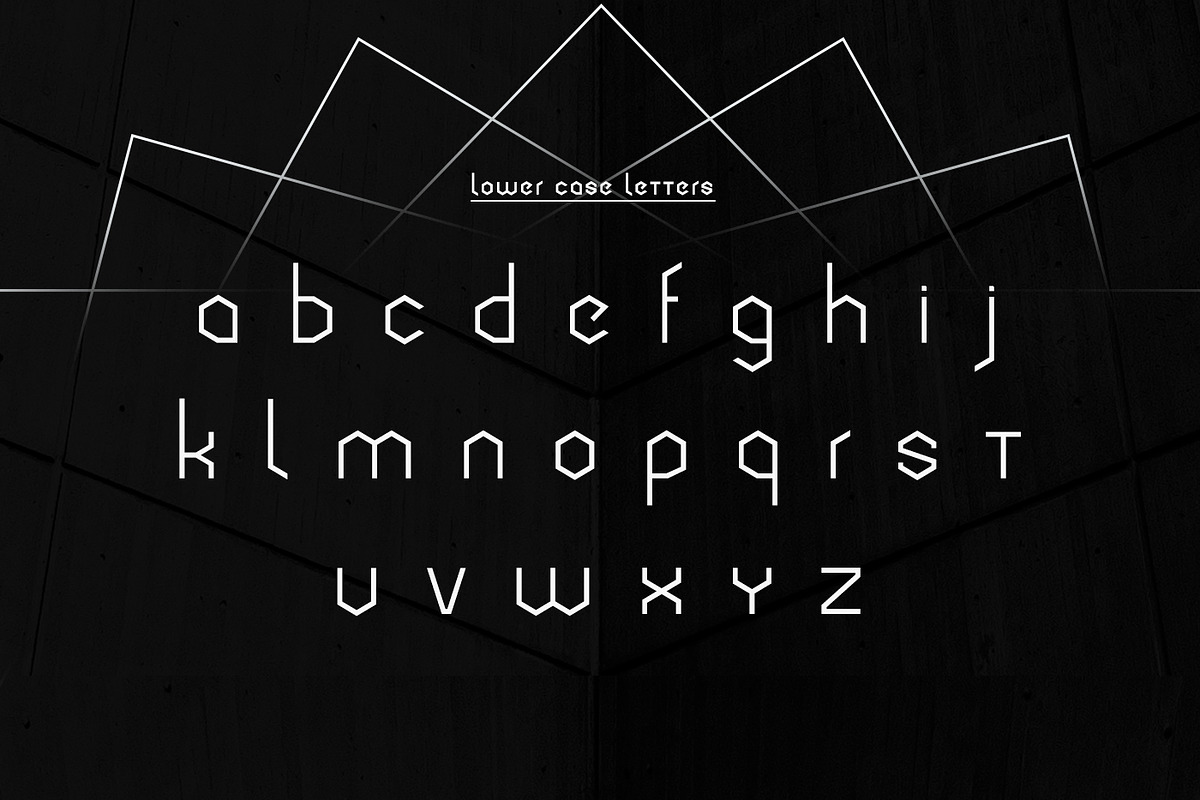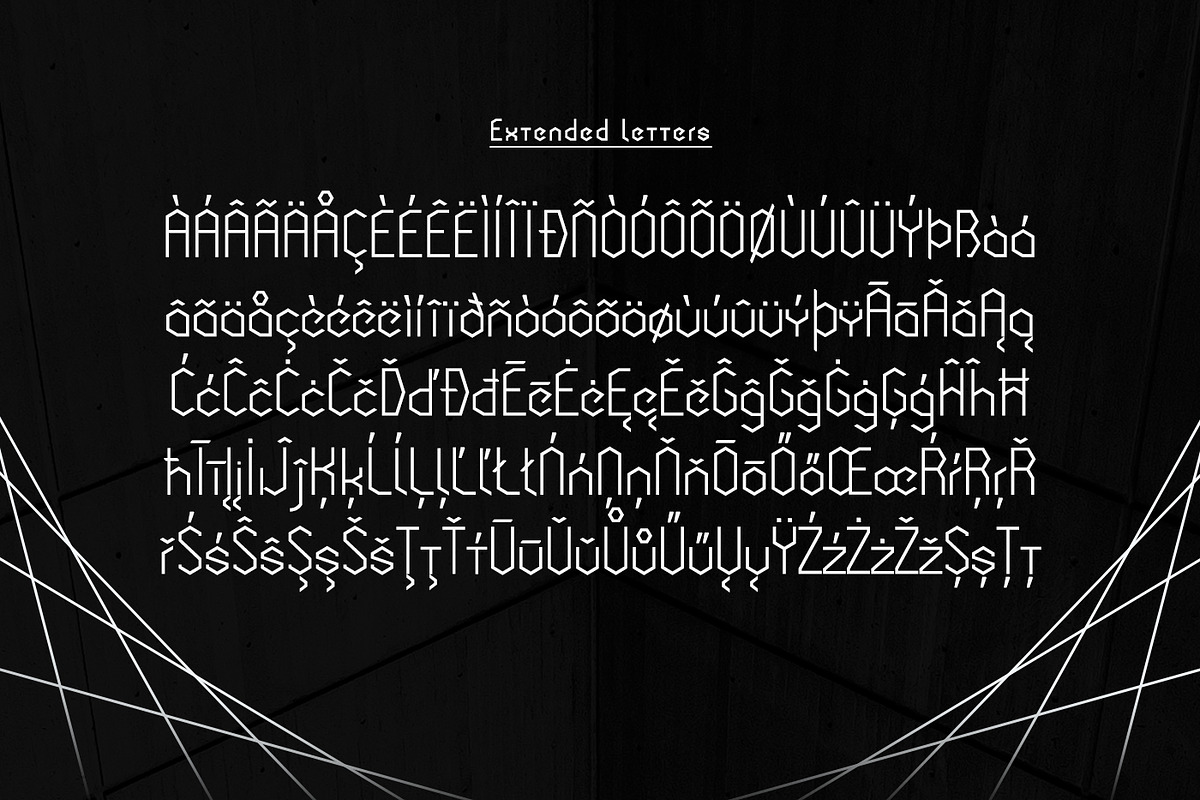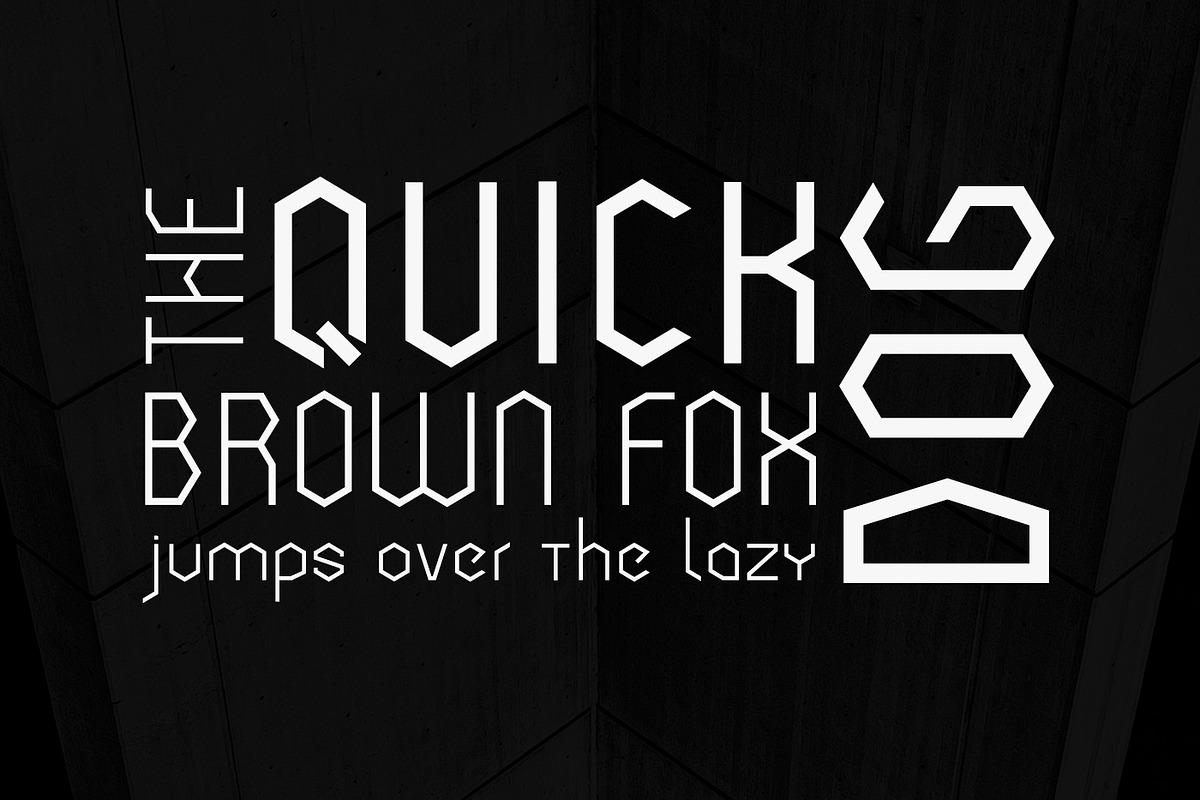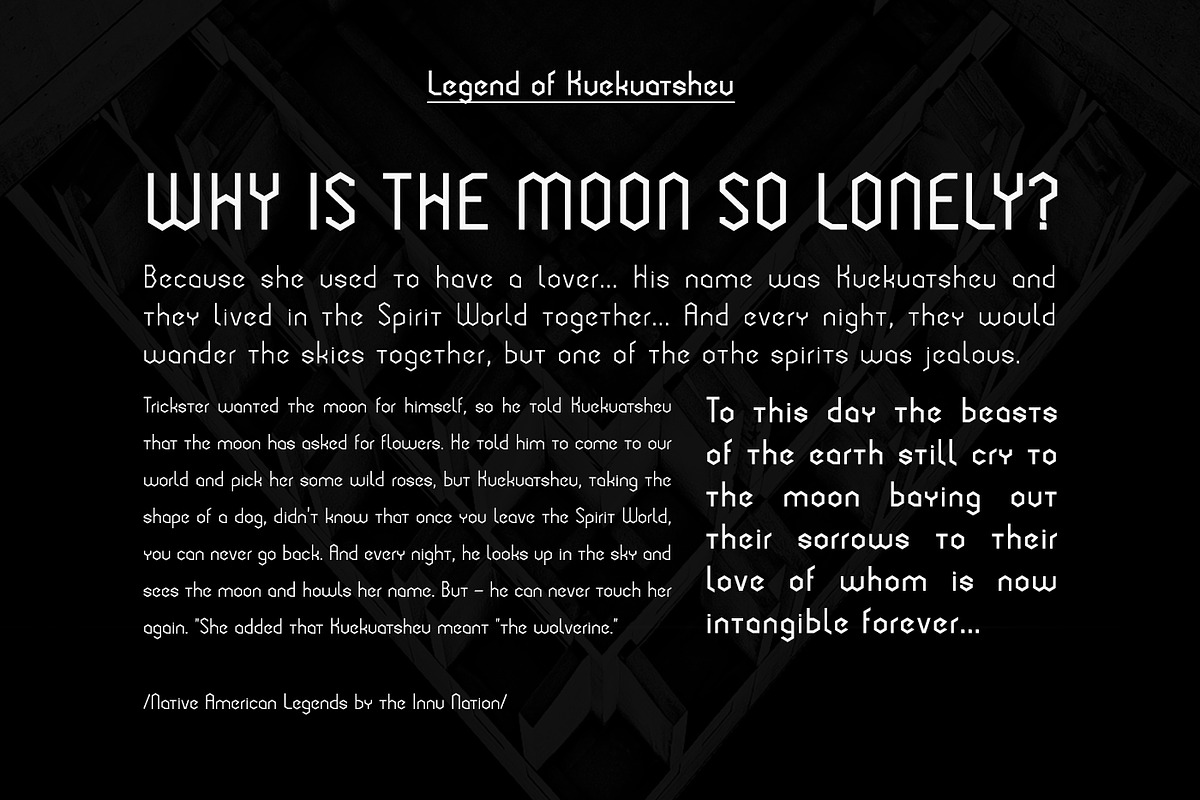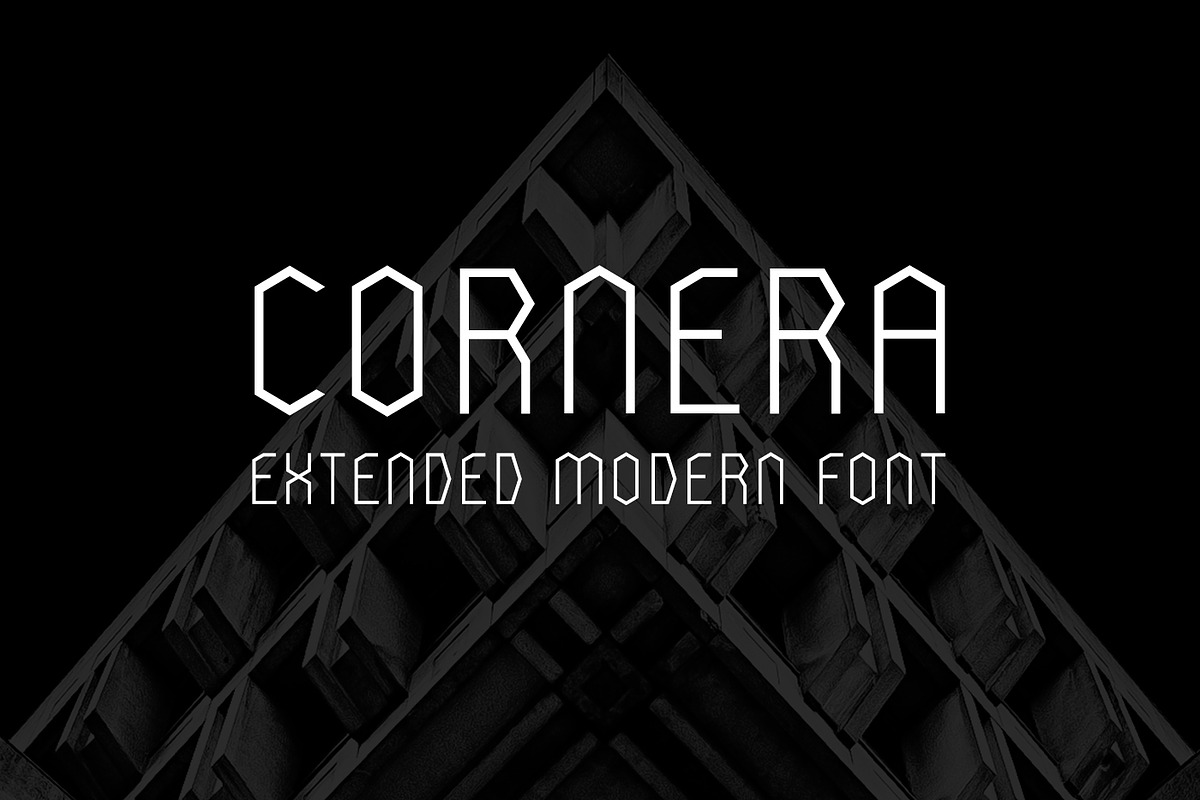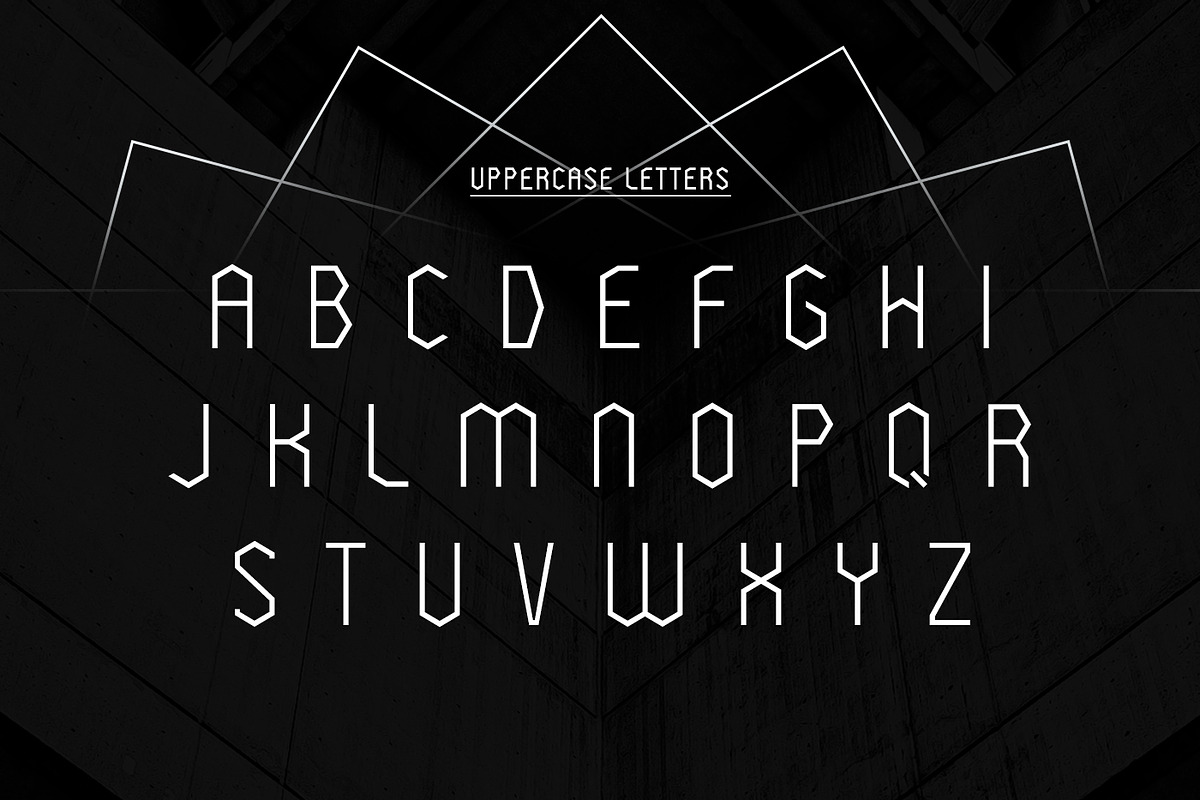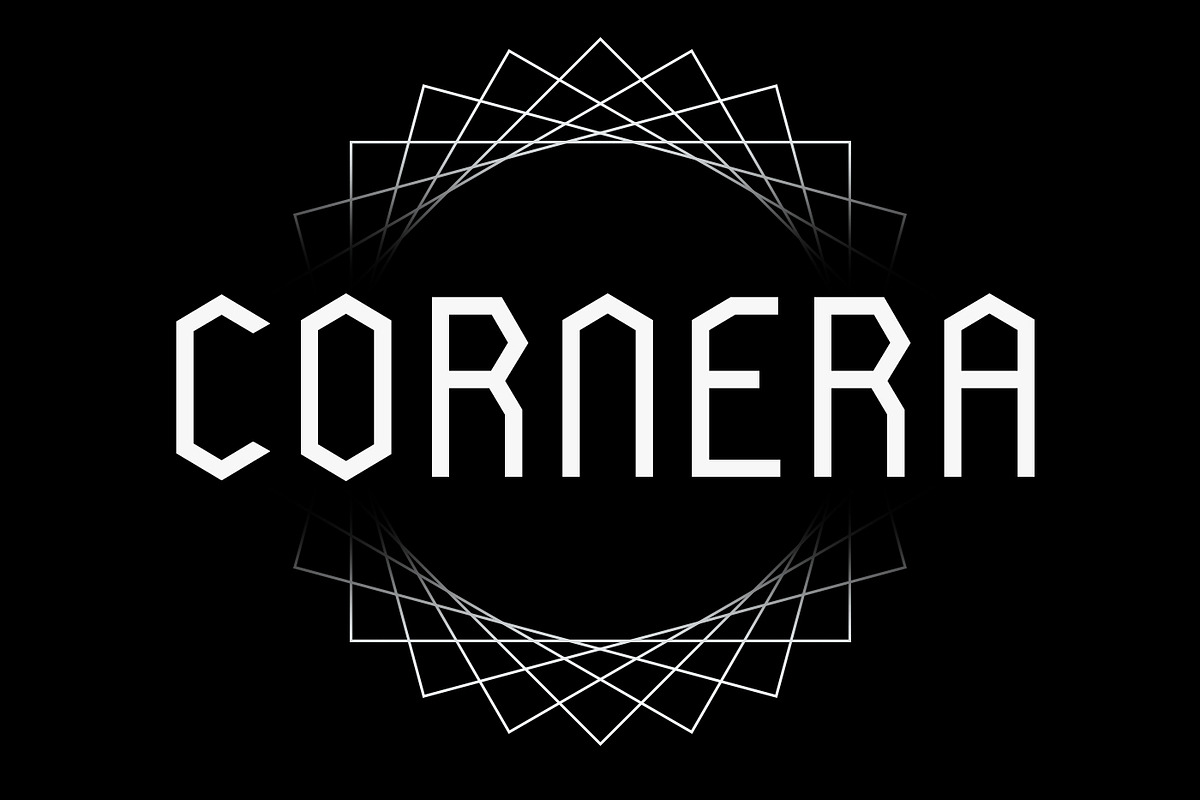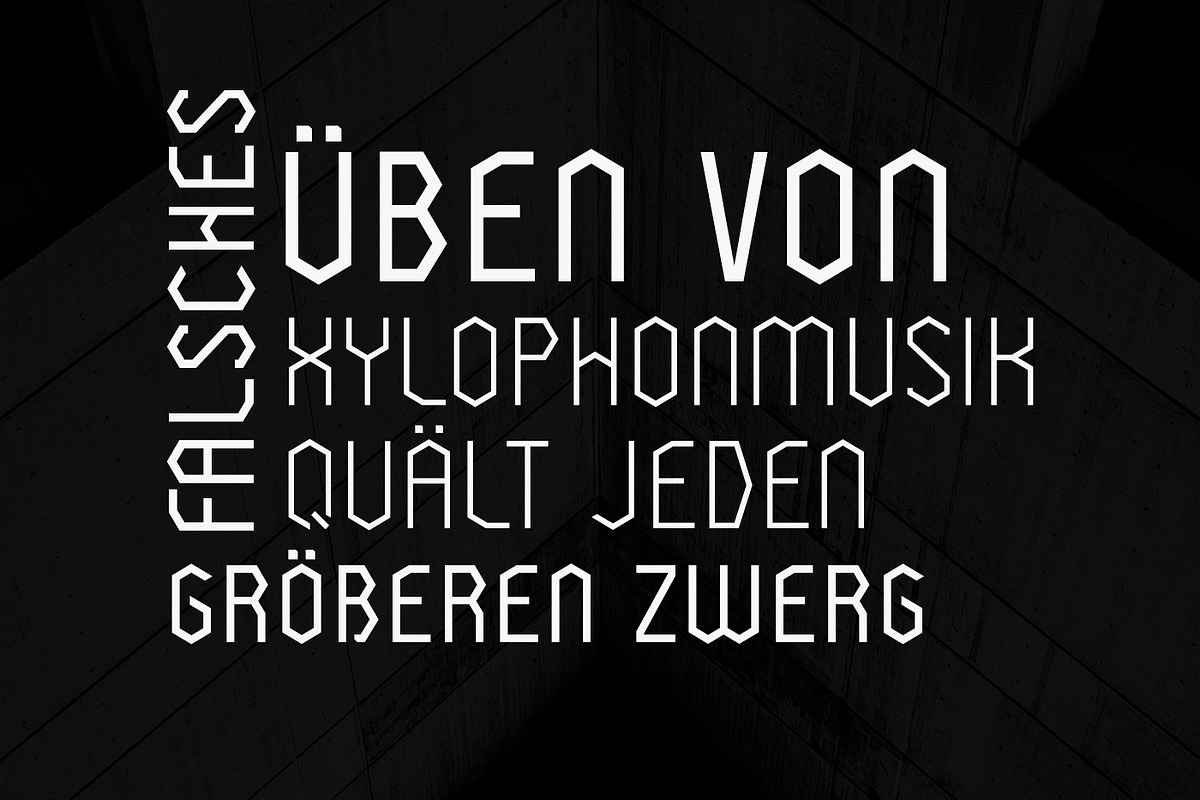
Cornera Extended Font
Cornera Extended Font by Wild Ones is a font selected for branding, posters, packaging, typography.
Why Cornera Extended Font is worth a look
Cornera Extended Font by Wild Ones fits naturally into Branding, posters, packaging, typography.